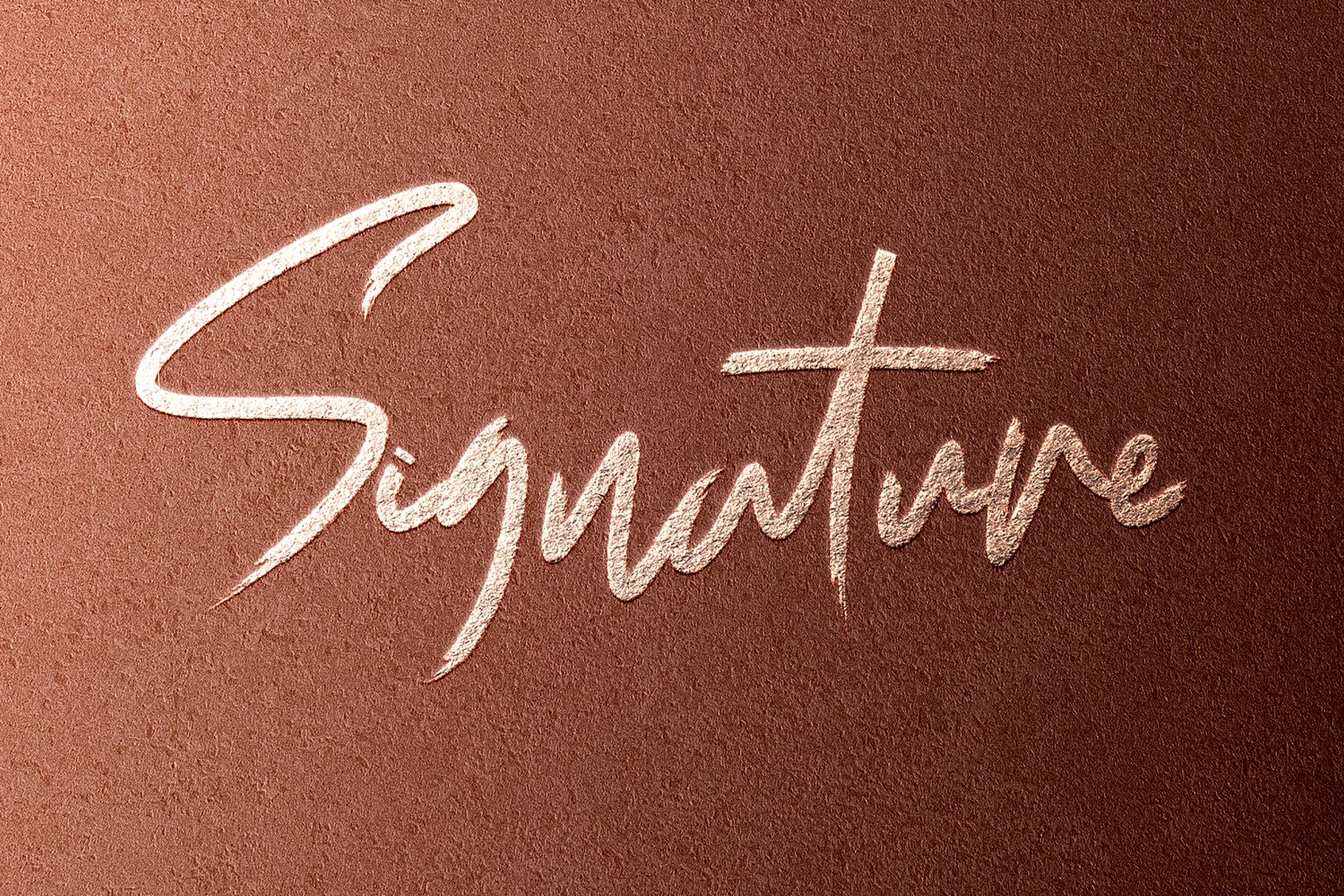
About Jacksonville
Jacksonville is a stylish signature brush script. It has a unique, striking look that can be used to make any design stand out. It’s perfect for logos, fashion designs, stationery, quotes, and much more! To stay up to date for my latest job, follow me and let’s be friends because there will be many promos. Our other products : BEST SELLER MILEADILA BEAUTIFUL KISSES ANGELIN GAMOS HERTINA JENNIE ANTIKA AURORA BLACK PINK SIGNATURE California Street BESTOWENS FAMILY